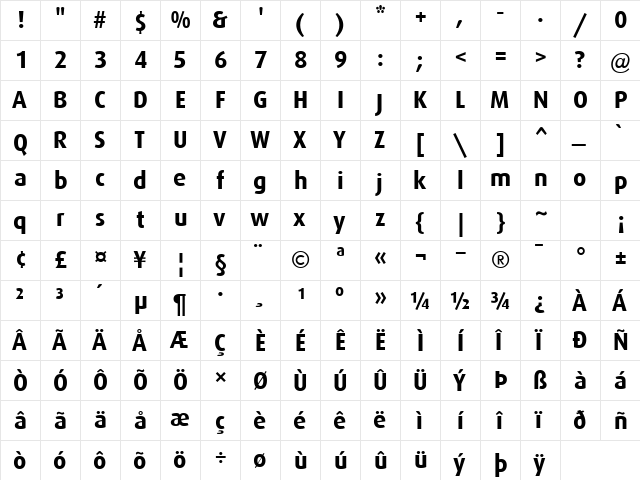
Dax Bold
Design Context for Dax Typeface
Dax is a composed and adaptable typeface that performs quietly and consistently across a wide range of design contexts. The heavy weight commands attention and anchors typographic hierarchies.